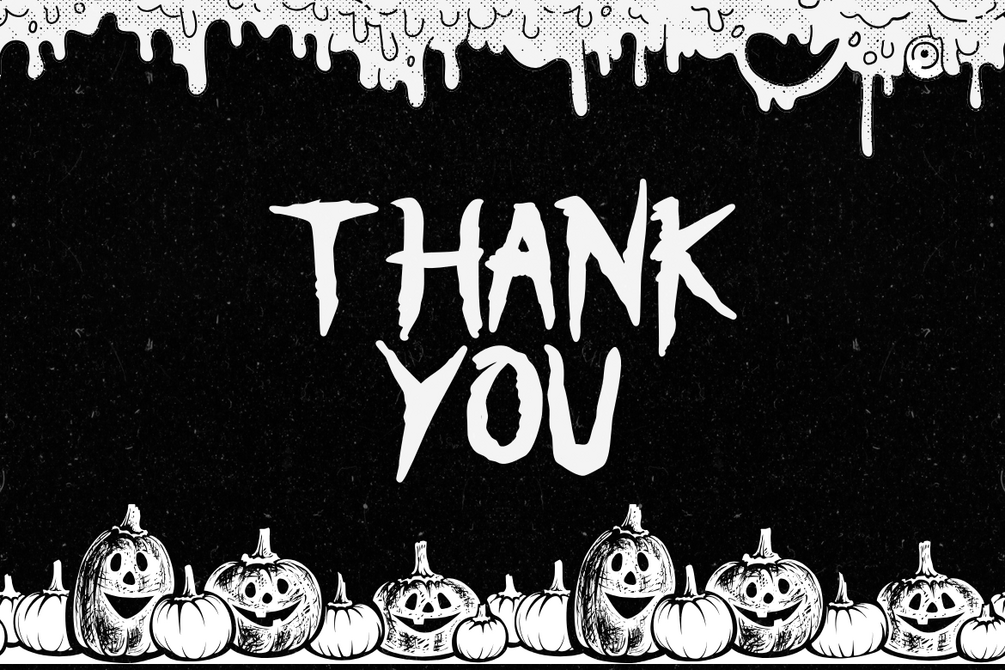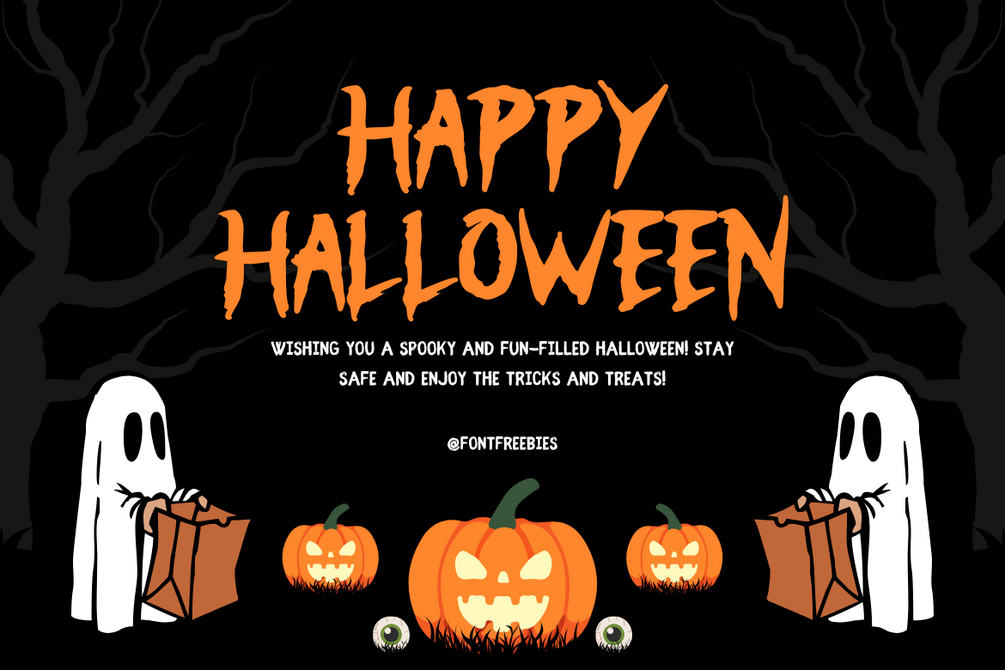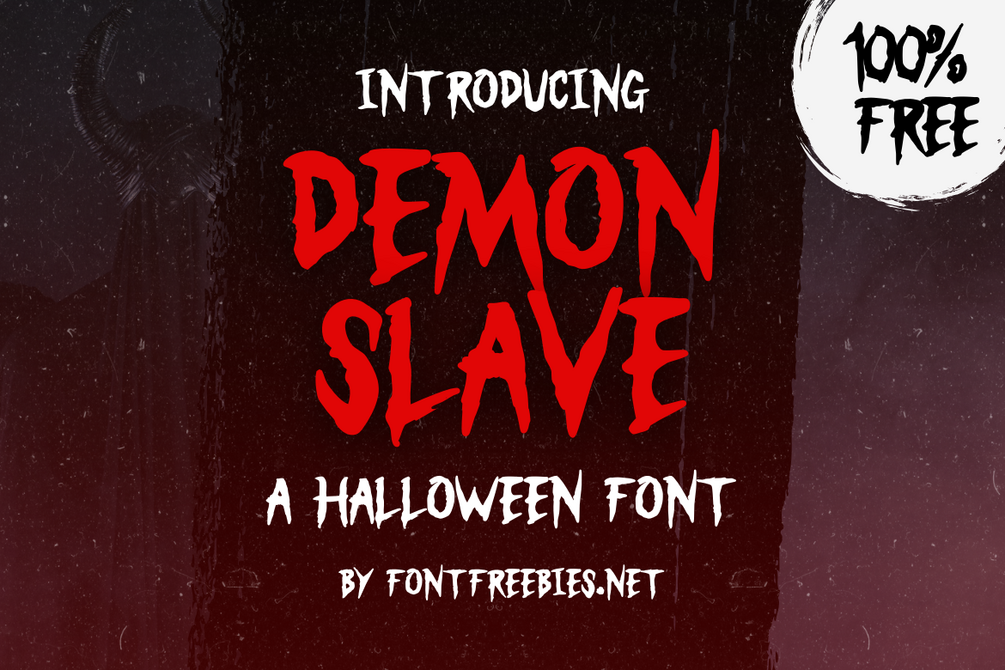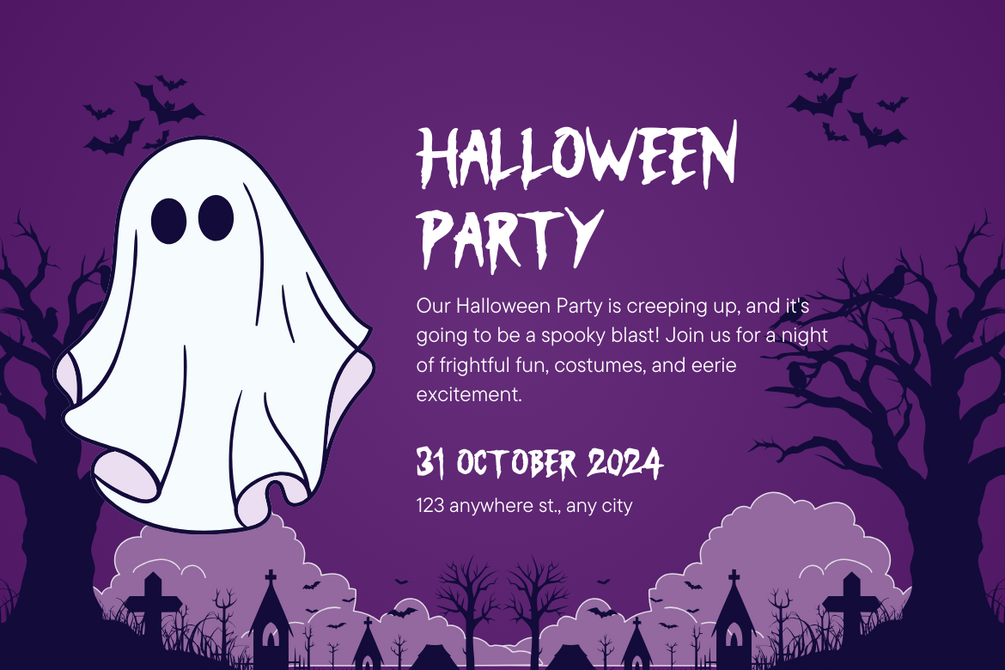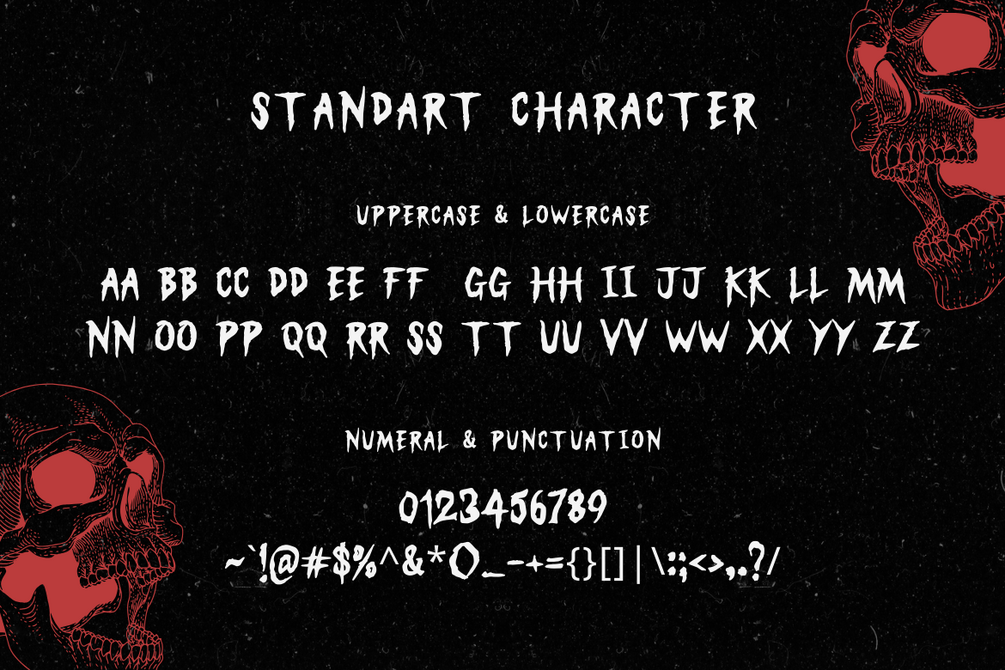
Demon Slave - A Halloween Font
Demon Slave is a dark and bold Halloween font that brings a menacing, aggressive touch to any design. Perfect for horror-themed flyers, posters, and social media graphics, this font features jagged, sharp letters that give your projects an eerie, haunted feel.